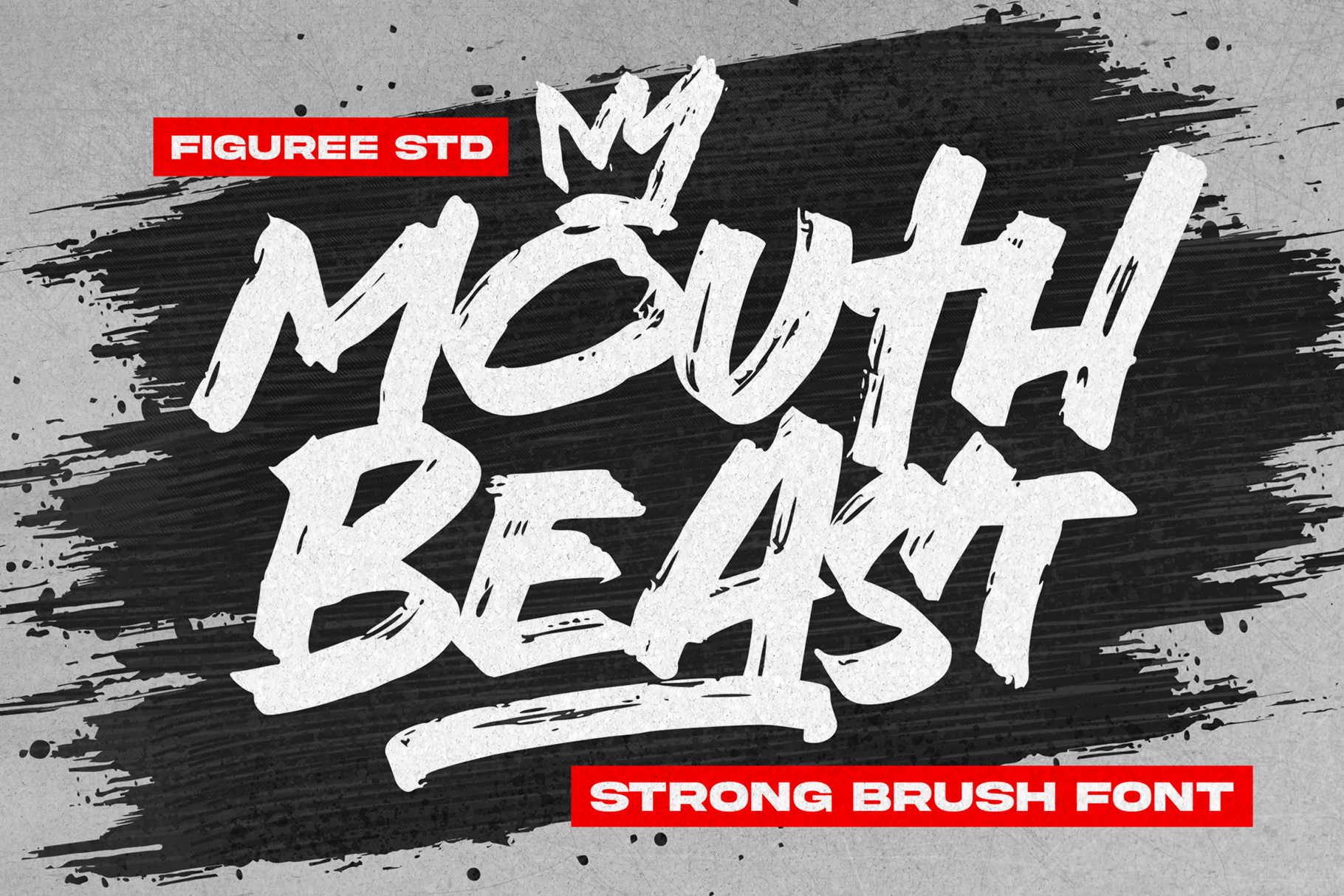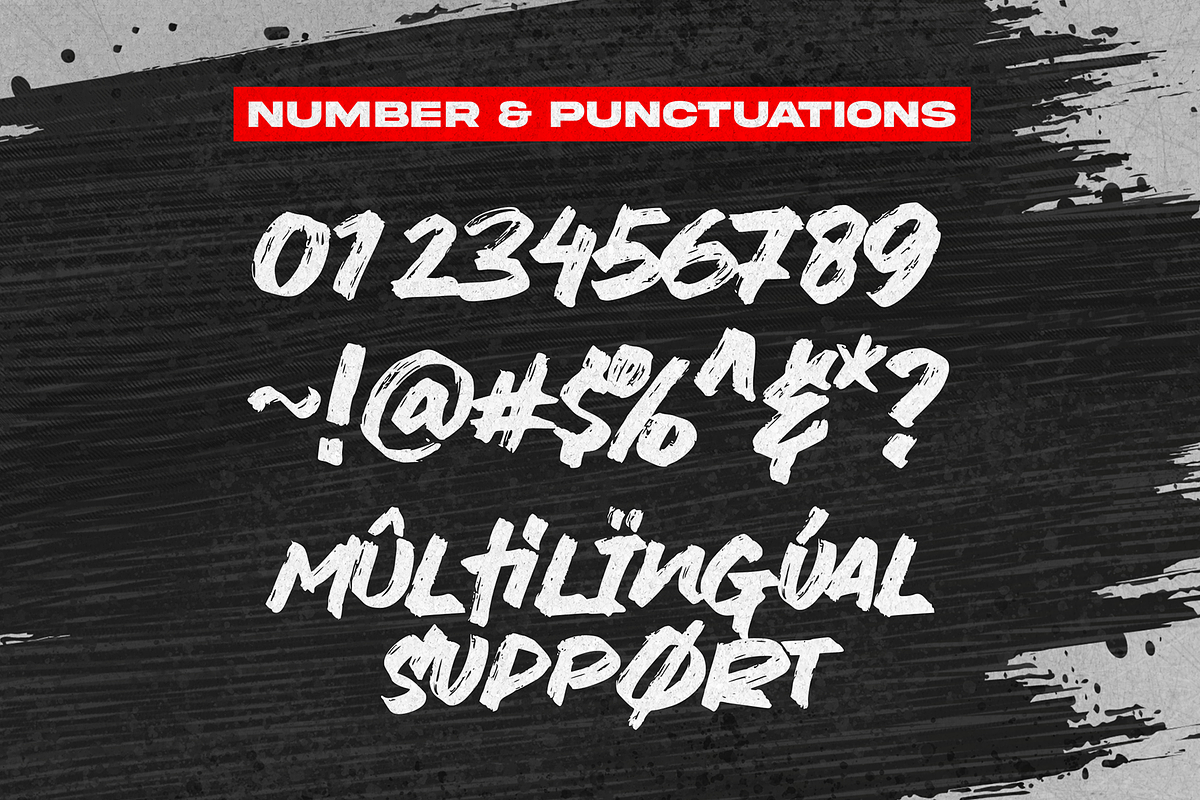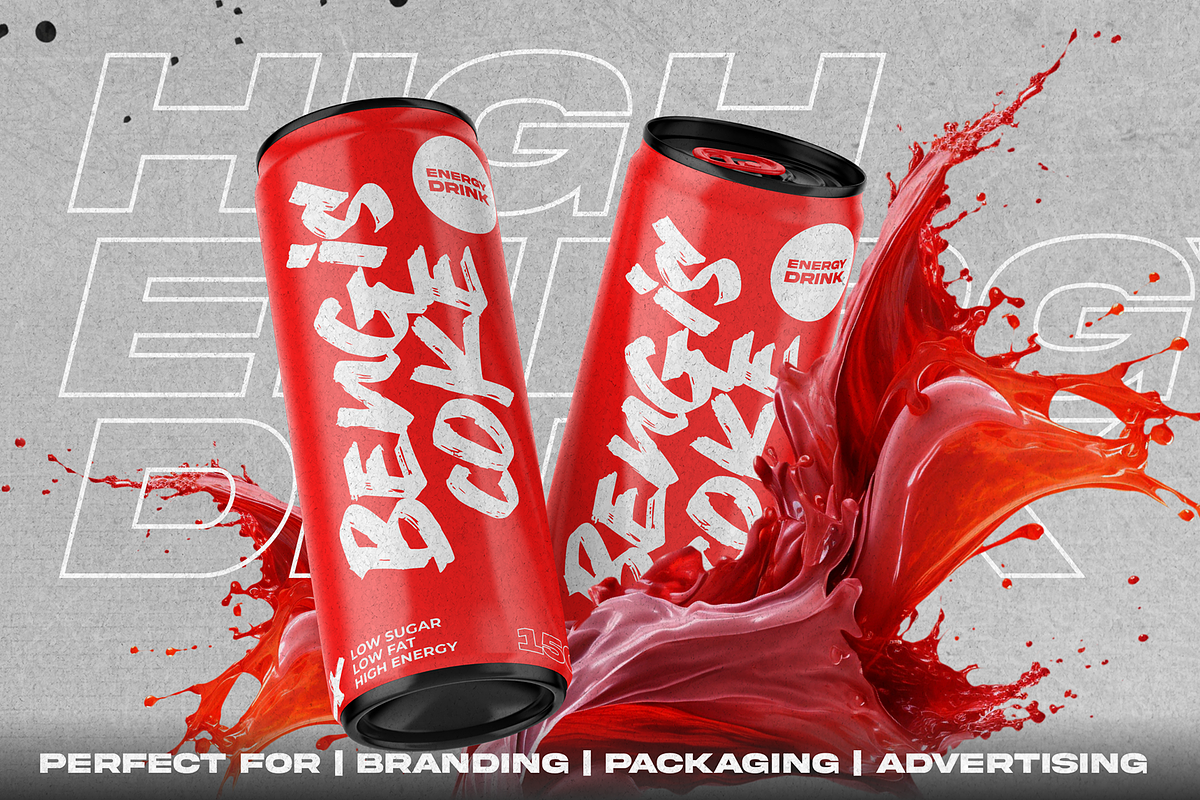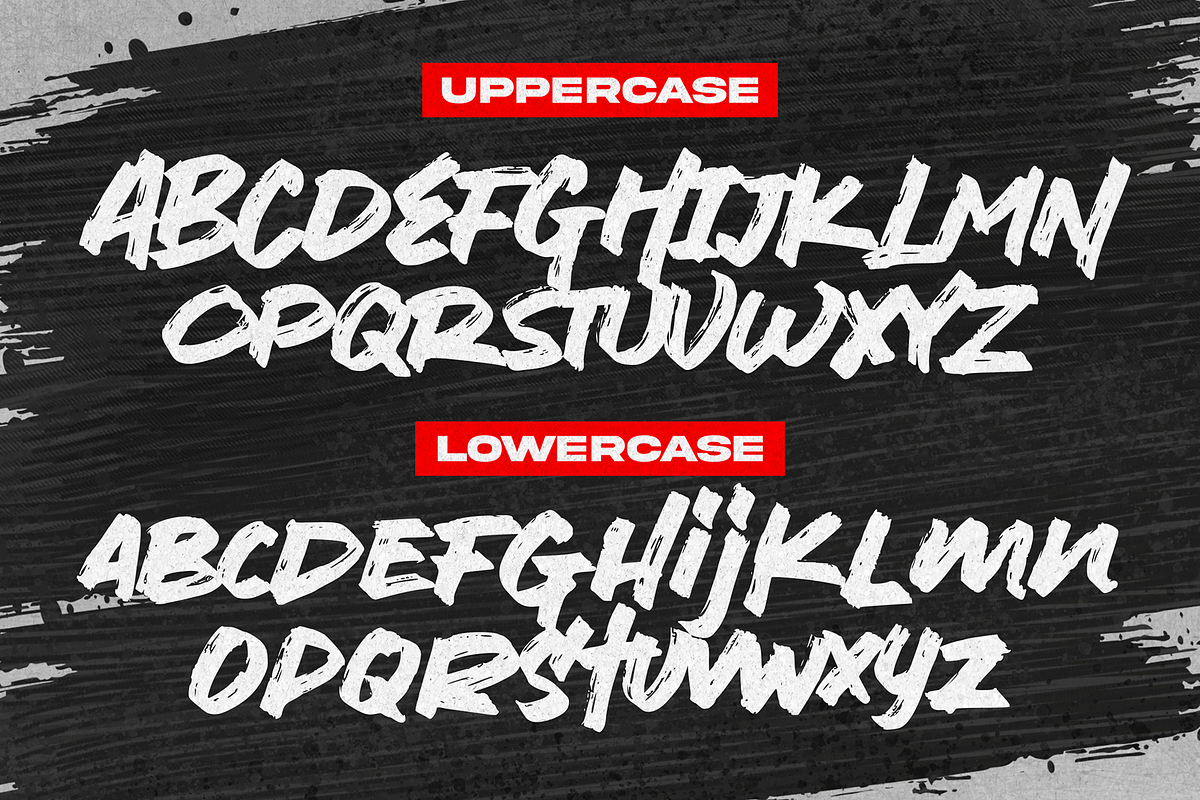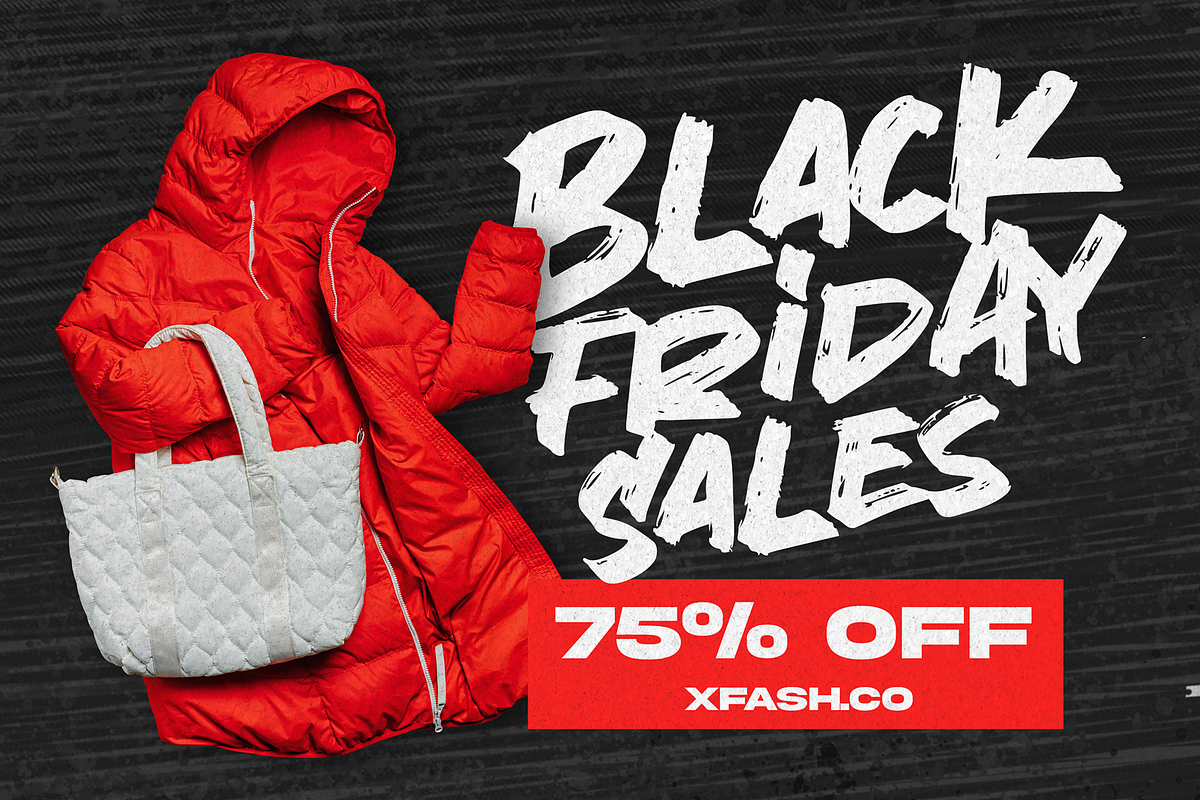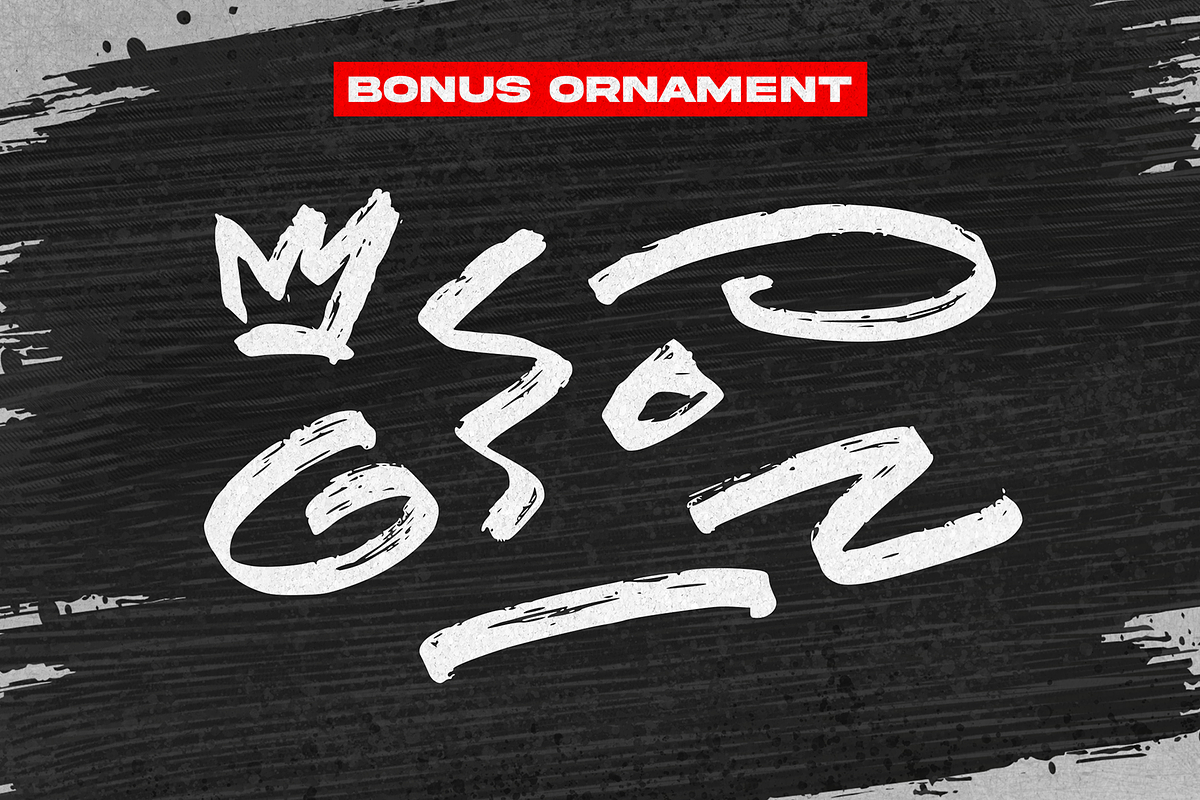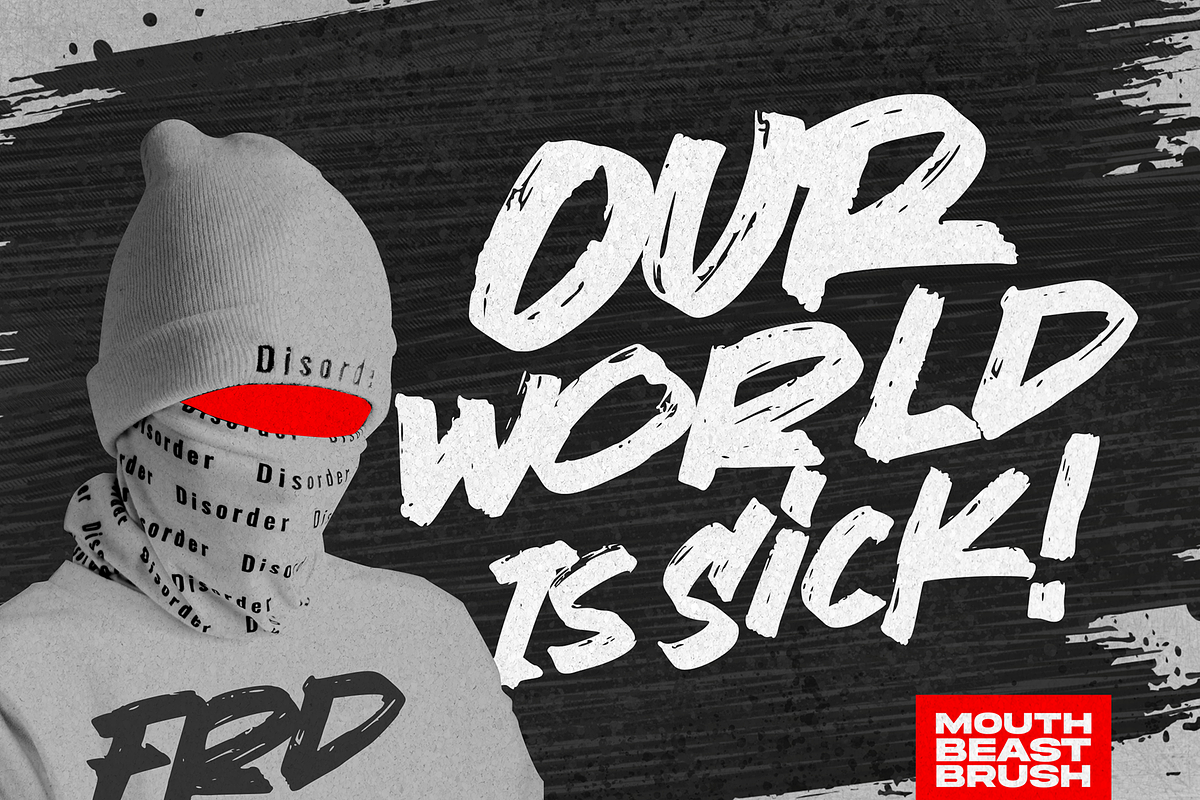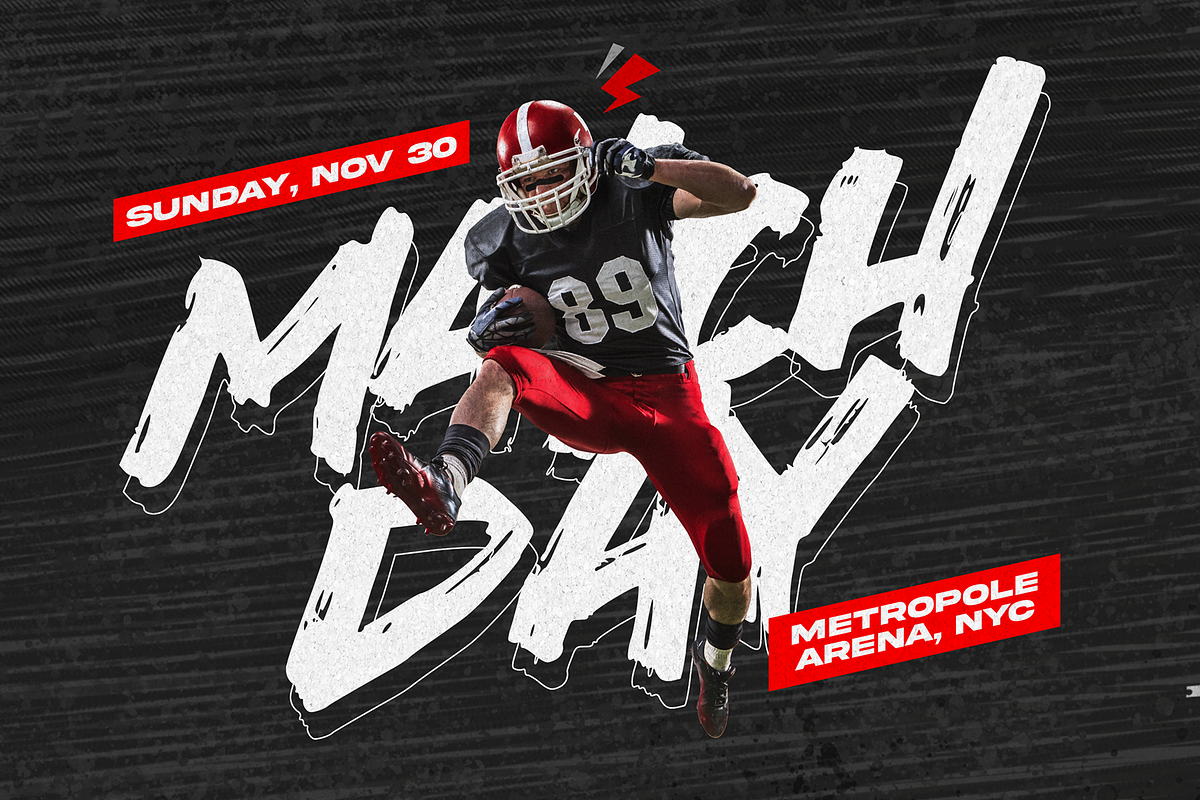
Mouth Beast - Strong Brush Font
Mouth Beast is a bold and robust brush font that unleashes the power of handcrafted design. Its strong, dynamic lettering captures a sense of unruly creativity and strength, making it an ideal choice for projects that demand a vigorous, impactful, and expressive style. Whether it's used in posters, branding, or any design that needs a visceral and dominant aesthetic, Mouth Beast adds an untamed and commanding presence to your text, leaving a lasting impression with its ferocious charm.